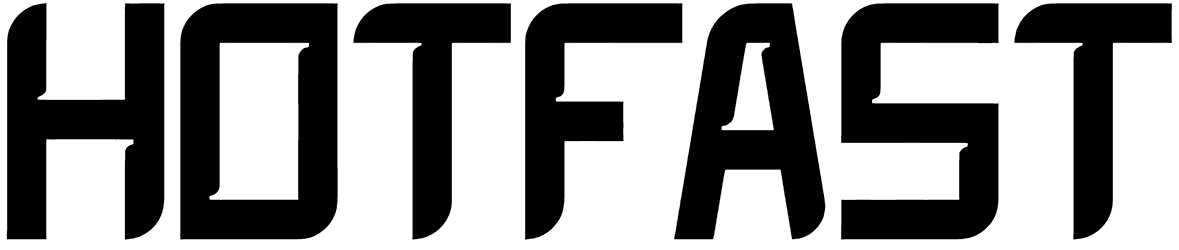
Hotfast Font
Most of the time, when you use a modern and salient letterform, the outcome will be more memorable, and this futuristic font can easily do it. Hotfast font offers three versions, but you don’t have lowercase, numerals, or punctuation marks. Try this all-caps font for your next project, like a video game design, and enjoy the feedback.